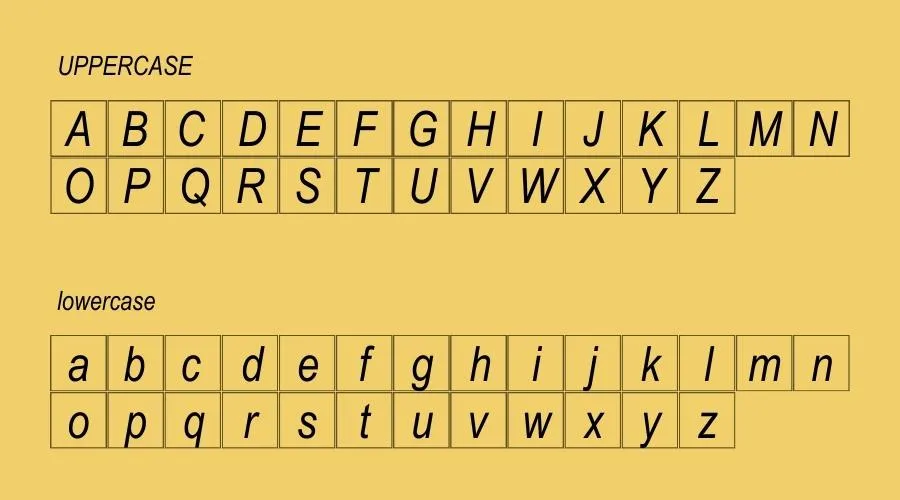
Arial Narrow Font
About Arial Narrow Font
Arial Narrow Font features a traditional feel with a clean and elegant texture appearance. This typeface could be an awesome choice for any venture that needs a touch of sentimentality.
It contains both upper- and lower-case letters, numbers, and some punctuation marks. The text style is flawless as long as each design demands a fun and unusual feel.
| Font Name: | Arial Narrow Font |
| Glyph Count: | 261 characters |
| Kerning Pairs: | 518 |